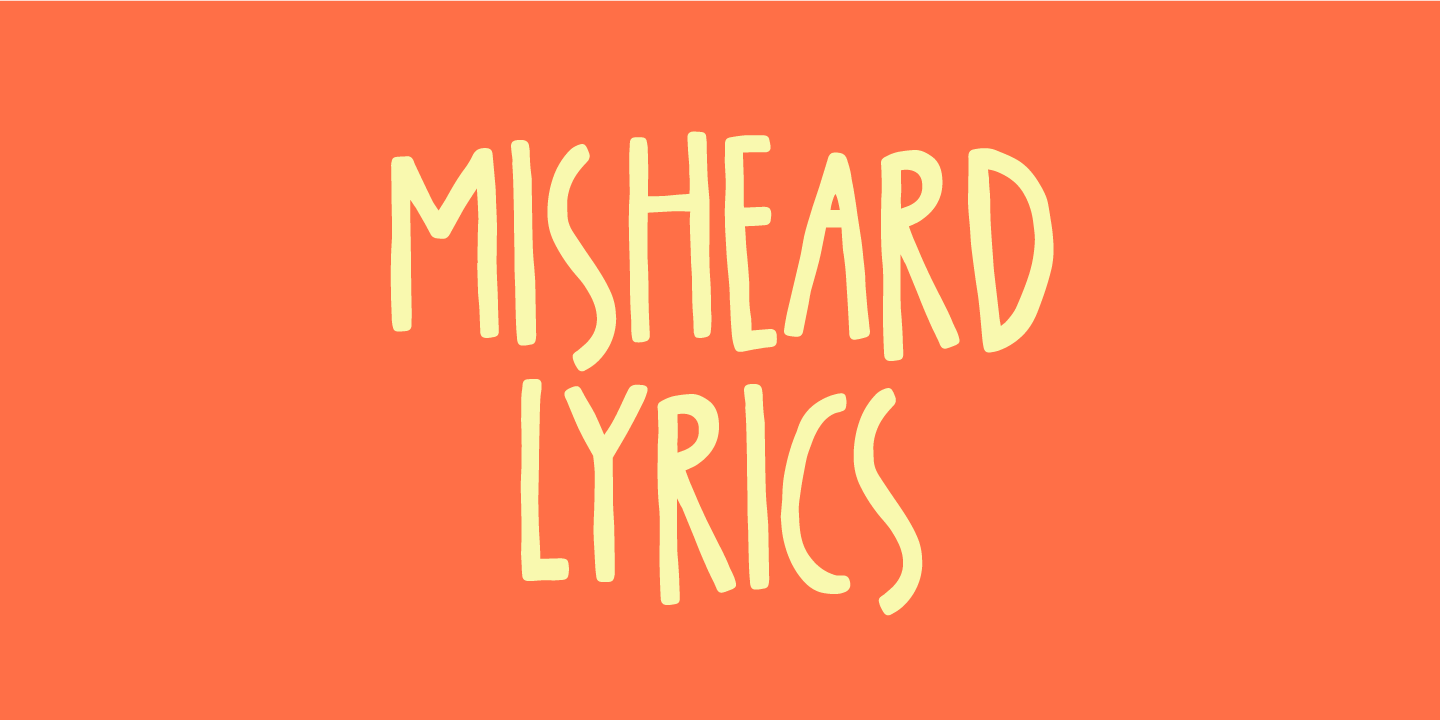
Misheard Lyrics Font is ideal for music-themed humor projects, comedy club posters, entertainment blog graphics, karaoke bar signage, funny social media memes, music trivia games, humorous greeting cards, comedy podcast branding, playful music education materials, and lighthearted design projects that celebrate musical mishaps and comedic moments.
What makes Misheard Lyrics Font exciting is its ability to capture the playful confusion and delightful humor of misunderstood song words through its quirky letterforms that seem slightly off-kilter yet charmingly endearing. This whimsical typeface embodies the spirit of those funny moments when we confidently sing completely wrong words, creating an atmosphere of musical humor and shared human experience that brings smiles and laughter to any design project.
The Misheard Lyrics Font family includes regular, bold, and wobble variations that enhance its comedic authenticity. Special musical notation symbols, humorous ornaments, and playfully confused character alternates provide comprehensive design flexibility, while multiple stylistic variations create the perfect atmosphere for projects celebrating the lighter side of music appreciation.
Misheard Lyrics Font Free Download delivers exceptional charm for projects requiring musical humor and lighthearted appeal. Its deliberately imperfect letterforms maintain excellent readability while projecting an image of fun, relatability, and comedic timing. The font's versatile nature works brilliantly for both professional entertainment industry applications and casual personal projects.
Embrace the musical comedy of Misheard Lyrics Font and create designs that celebrate the universal experience of getting song words hilariously wrong while bringing joy and laughter to your audience.